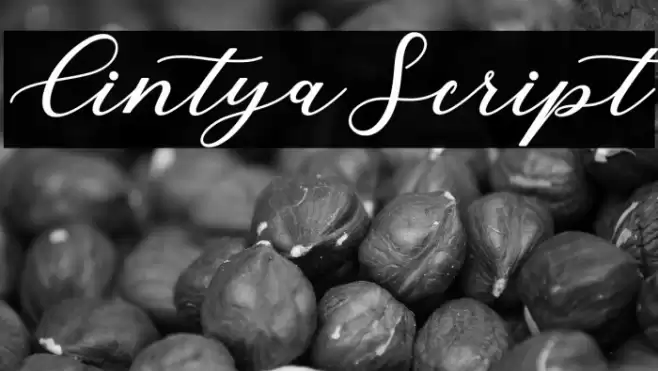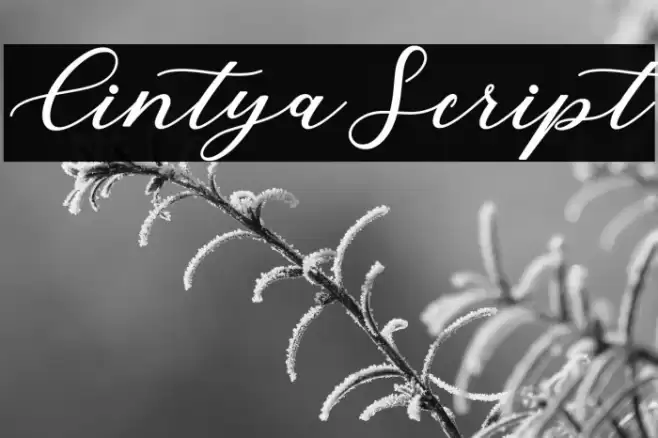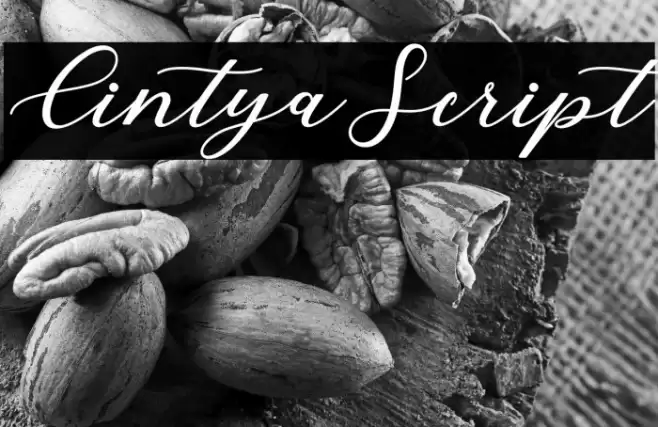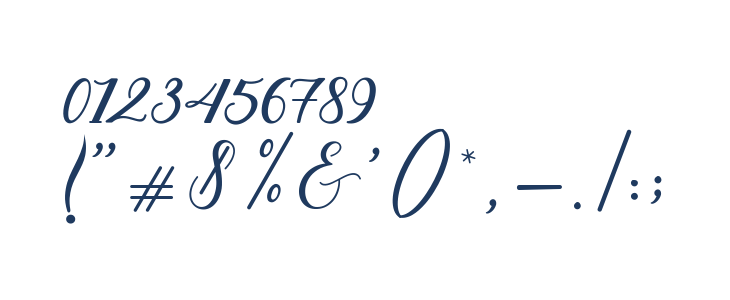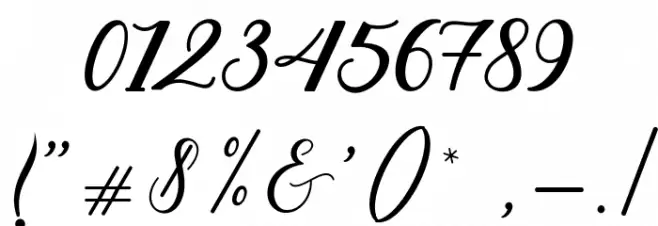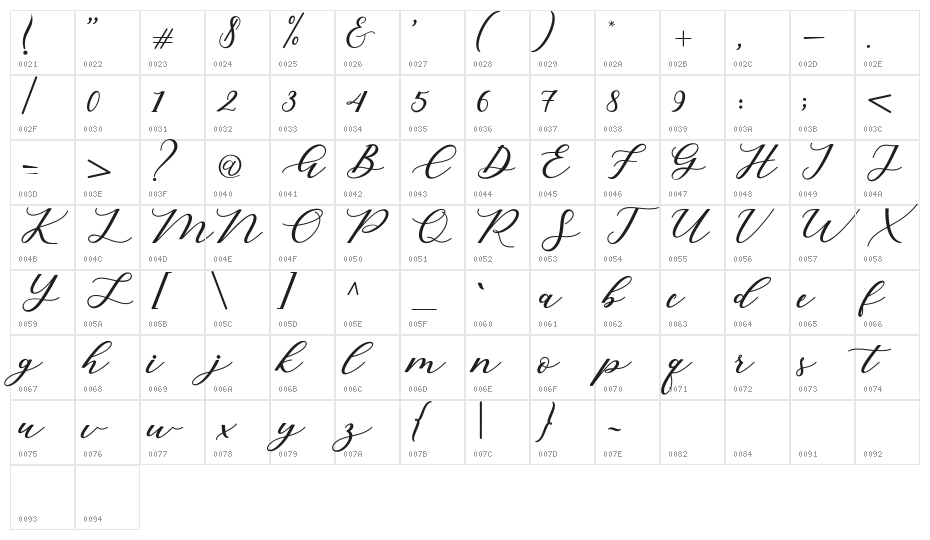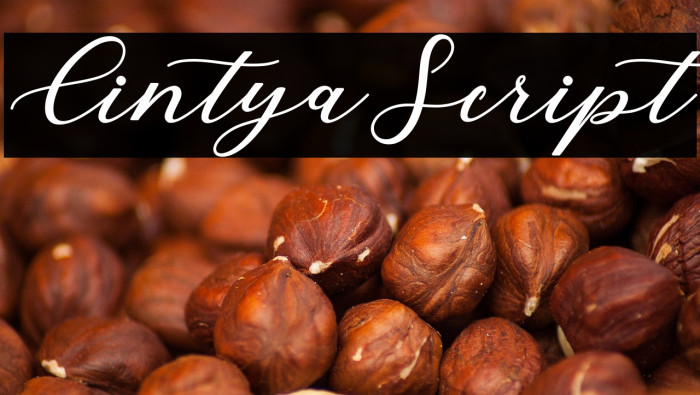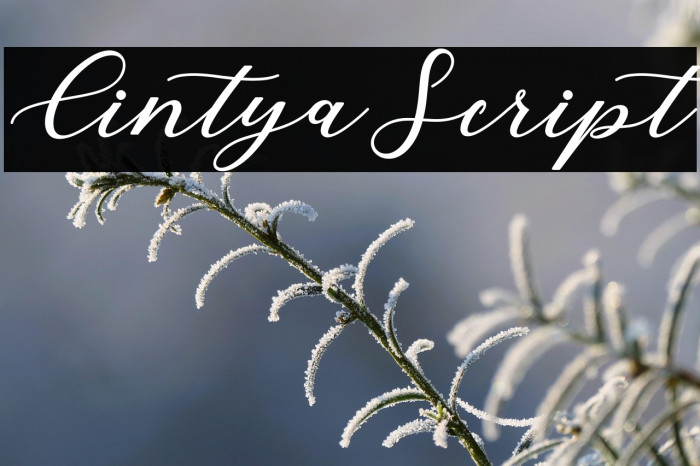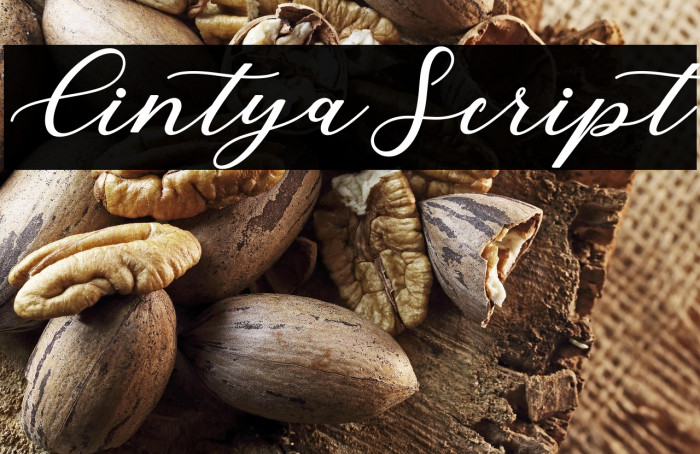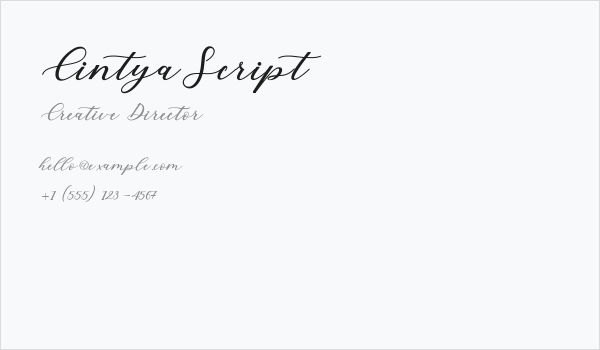
CintyaScript Font
CintyaScript Description
This elegant script font features flowing, cursive letters with a refined and sophisticated appearance. The uppercase letters are gracefully connected, while the lowercase letters exhibit smooth, fluid strokes that mimic natural handwriting. The numerals are stylish and maintain the script's fluidity, making them suitable for decorative purposes. Special characters are designed with the same attention to detail, ensuring consistency across all glyphs. The font's overall aesthetic is both classic and modern, making it versatile for various design applications.
A refined script font with elegant, flowing cursive letters from Regular fonts.
- Proposed Projects: Ideal for wedding invitations, elegant branding, greeting cards, and upscale packaging.
- Overall Style: Elegant, Classic
- Use Case: Logos, Invitations, Decorative text